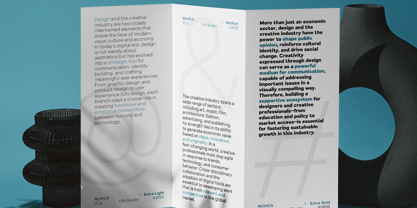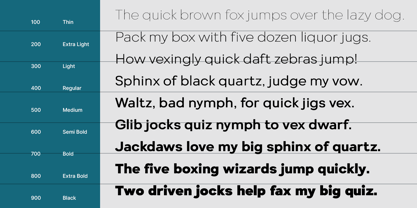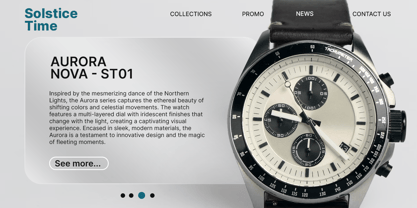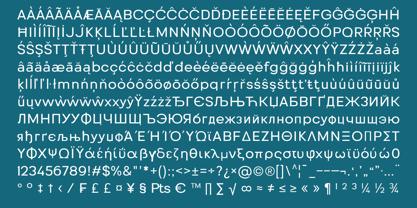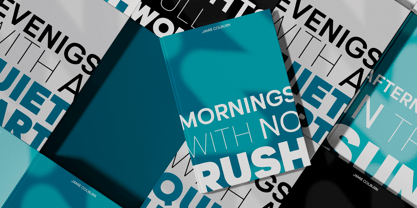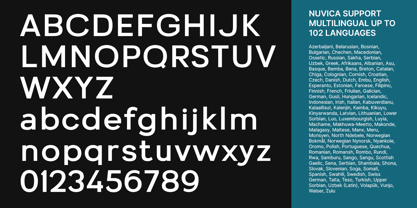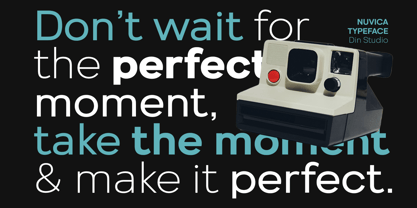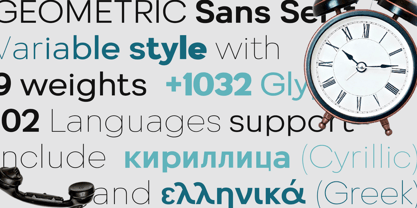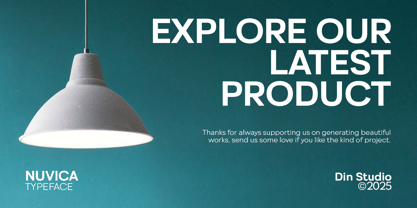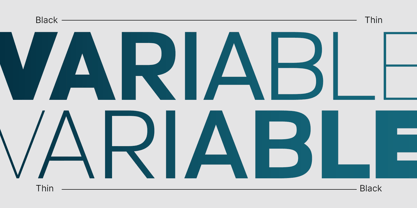
Nuvica
by Din Studio
The Nuvica Font Family was designed by Donis Miftahudin and published by Din Studio. Nuvica contains 9 styles and family package options. More about this family
Nuvica is a modern geometric sans serif font family designed to deliver a clean, aesthetic, and contemporary impression. Featuring nine carefully crafted weights from Thin to Black, Nuvica offers exceptional versatility for a wide range of design needs. Its precise geometric construction creates a harmonious, balanced look with crisp, minimalist lines that feel fresh and timeless. Nuvica combines functionality with refined style, making it an essential tool for today’s designers. In addition, enjoy the features here.
Features:
• Multilingual Supports
• Numerals and Punctuations
Nuvica fits in name cards, branding, packaging, posters, headlines, editorial designs, and many more designs. Find out more ways to use this font by taking a look at the font preview.
Designers: Donis Miftahudin
Foundry: Din Studio
Din Studio is a type design studio founded by Donis Miftahudin in 2017. The studio focuses on creating unique and visually appealing script and display fonts that stand out in the industry. Donis Miftahudin is a well-known type designer in the industry and has created several popular fonts under the Din Studio brand.The fonts designed by Din Studio are characterized by their distinct style and aesthetic appeal. The studio's designs often incorporate unique elements, such as intricate ligatures and swashes, to create fonts that are not only visually stunning but also highly functional. The studio's fonts are often used in a variety of applications, including branding, advertising, and editorial design.Din Studio's fonts are highly regarded in the design community and have received recognition from industry publications and organizations. The studio has been featured in several design blogs and magazines, and its fonts have won awards at prestigious design competitions.One of the hallmarks of Din Studio's work is its commitment to innovation and experimentation. The studio is constantly exploring new techniques and approaches to type design, pushing the boundaries of what is possible in the field. This dedication to innovation has helped Din Studio establish itself as one of the most exciting and influential type design studios in the industry.Overall, Din Studio is a dynamic and innovative type design studio that is pushing the boundaries of what is possible in the field. With its focus on unique and visually appealing script and display fonts, the studio is poised to continue making a significant impact in the design community for years to come.